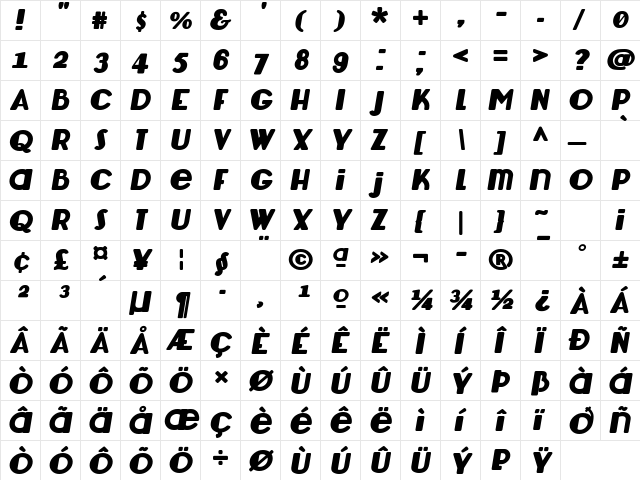
Lemondrop Bold Italic
| Designer | Lauren Thompson |
Design Context for Lemondrop Typeface
Lemondrop takes a measured approach to typography — its balanced proportions and neutral character make it a reliable workhorse for both digital and print work. The slanted form adds forward momentum and visual energy. The heavy weight commands attention and anchors typographic hierarchies.
Pro Tip: Use Lemondrop for emphasis, pull quotes, and subheadings where its slanted energy can add rhythm to the layout.